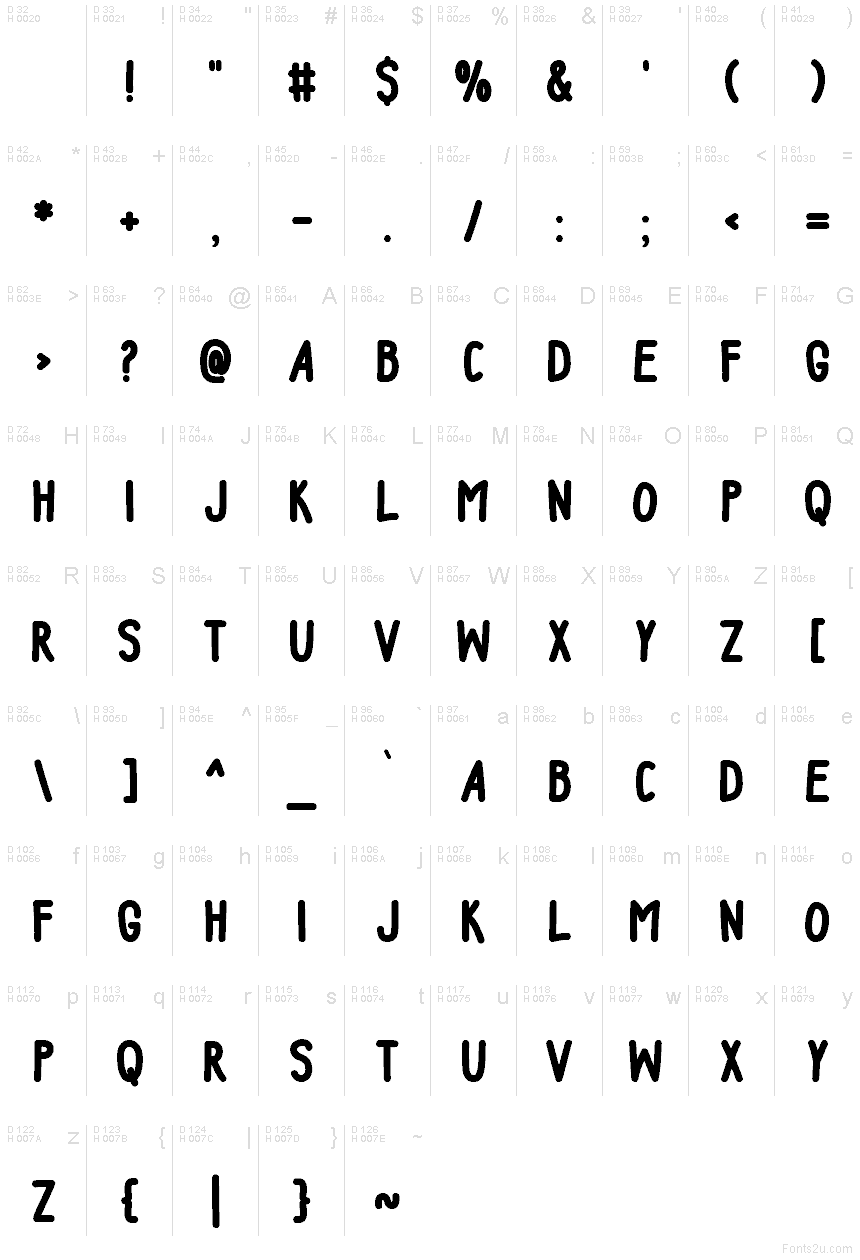
Bold Living
Bold Living font by Md Shohail Bhuian is a free handwritten font with condensed letters and a steady weight. The typeface features natural, casual, and friendly handwriting with organic curvy strokes within. A perfect balance is noticeable in the fluid lines that are presented in this approachable easy-to-read font.
Rounded playful designs that require legibility can be improved with this fun text style. Make it part of your posters, stickers, wall prints, T-shirts, caps, branding ideas, music album covers, invitation cards (birthday/wedding/other), and packaging projects among many other ideas.